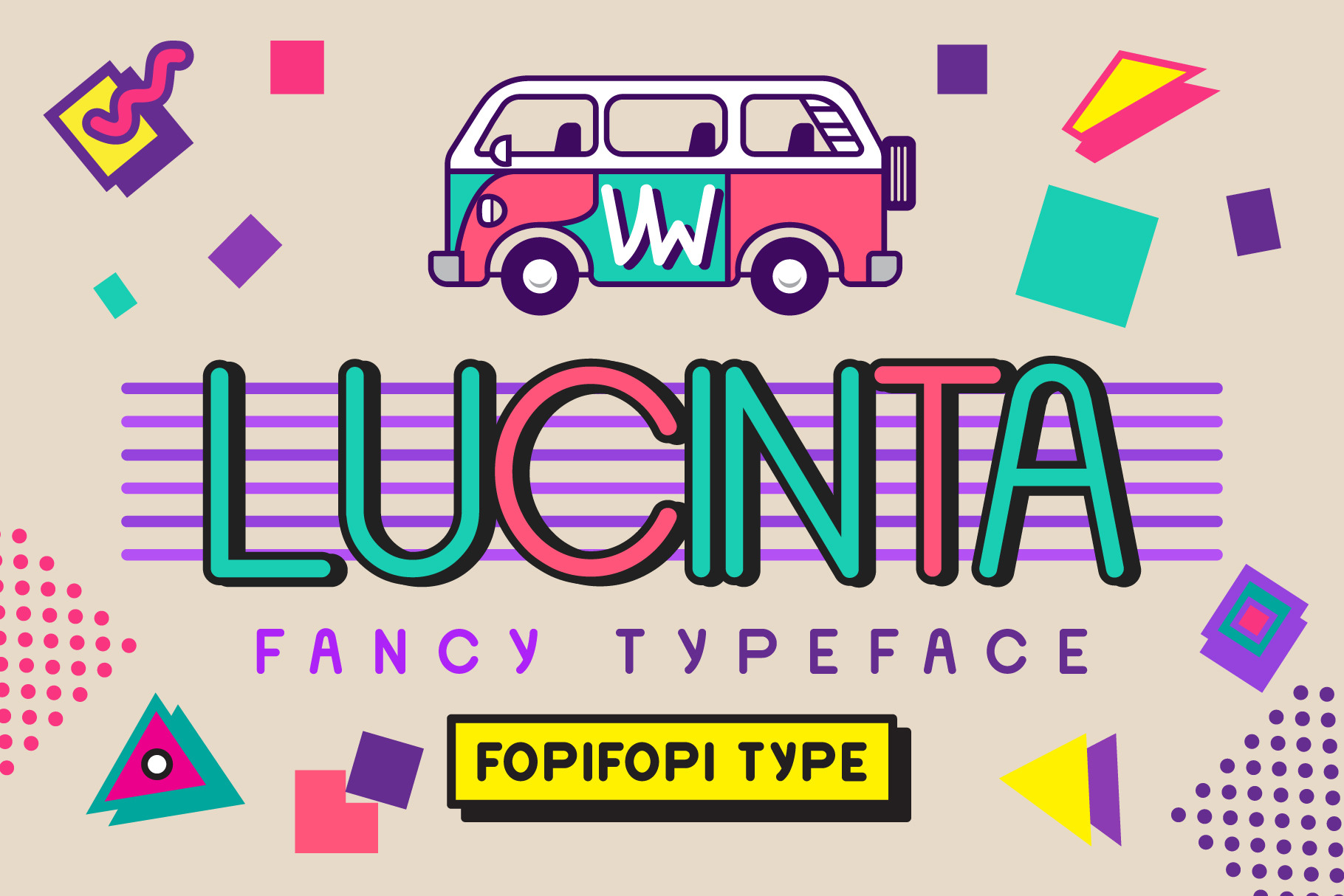
Lucinta Fancy Typeface was inspired from 50's posters, neon light, and 'Old Beverly Hills element' that I ever seen. This font could help to good display, uses for labeling, clothing, art job, t-shirt design, movie sceen, band logo,film title, gigs, cover album. and many more, the sky is your limit. It comes with 240++ characters included Uppercase, Lowercase, Numbers, Punctuations, Currency, and Accents. ;)